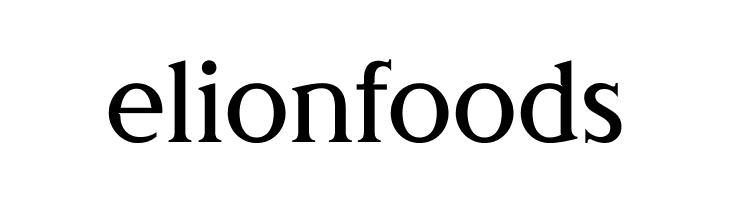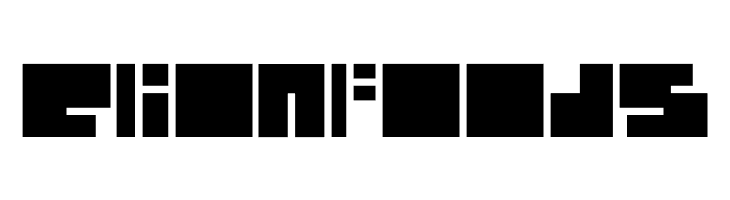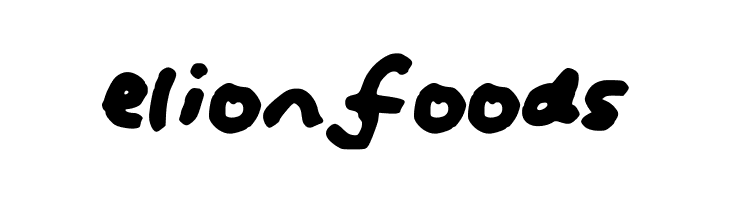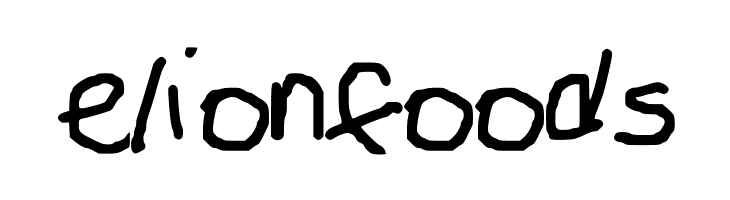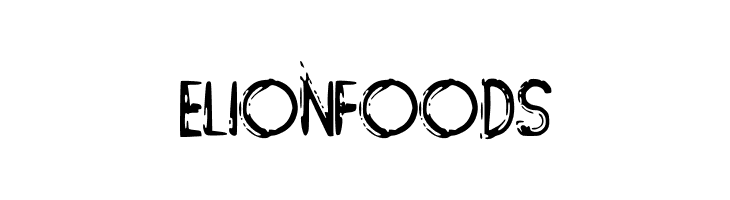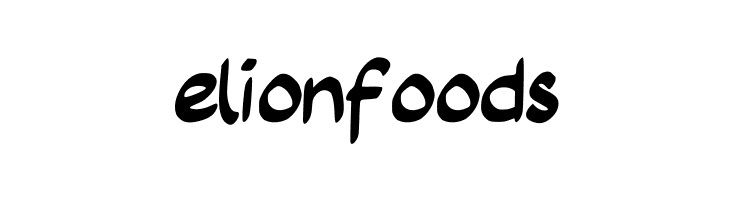
An abstract, decorative font with bold, intricate designs.
A classic serif font with elegant strokes and balanced medium weight.
A bold, playful handwritten font with dynamic, irregular strokes.
A bold, distressed font with a rugged, grunge style.
A bold, distressed font with a grunge, urban aesthetic.
A bold, geometric font with a futuristic and digital style.